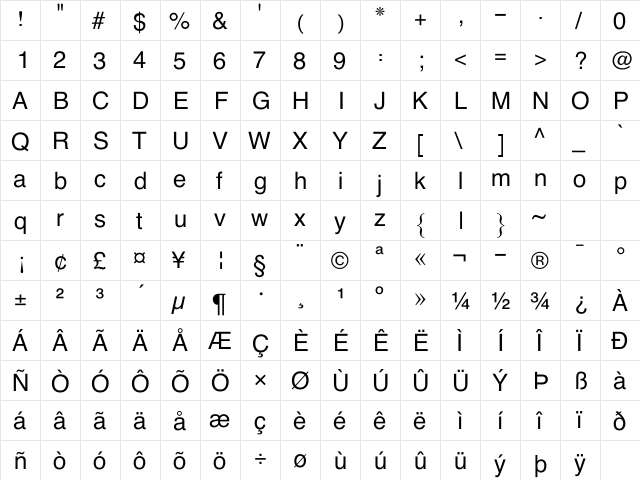
XB Riyaz Regular
Design Context for XB Riyaz Typeface
XB Riyaz is a composed and adaptable typeface that performs quietly and consistently across a wide range of design contexts.
Pro Tip: Use XB Riyaz in both headline and body roles to test its range before committing to a single application.